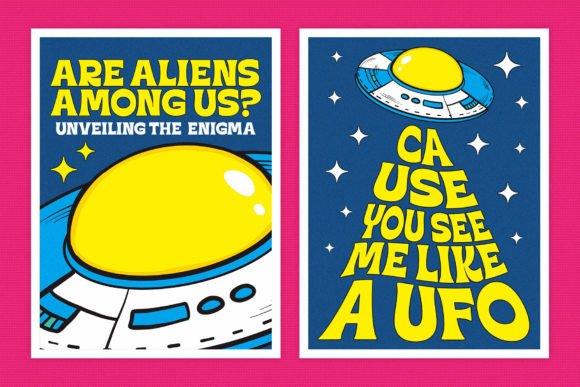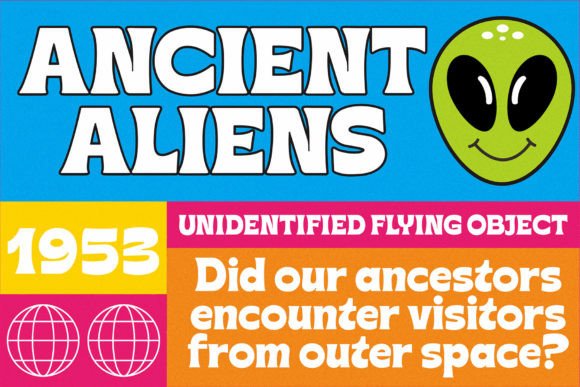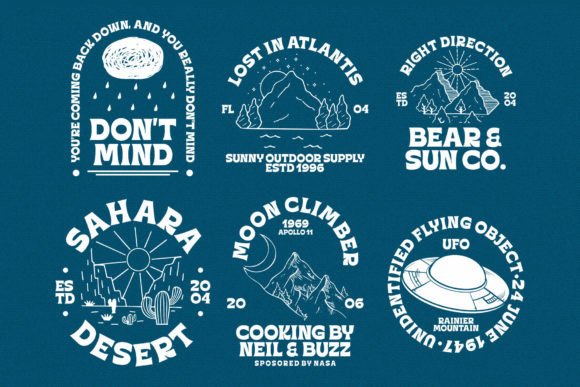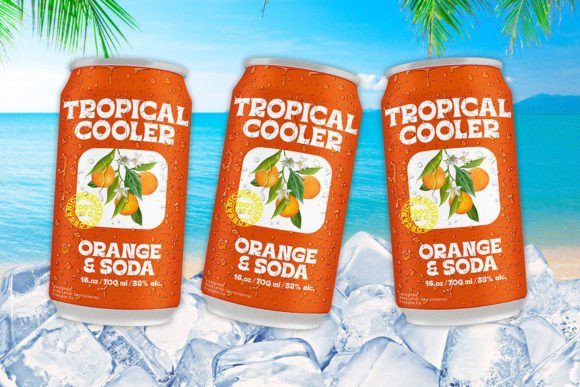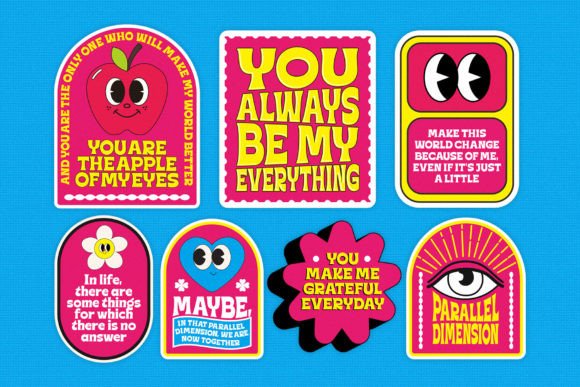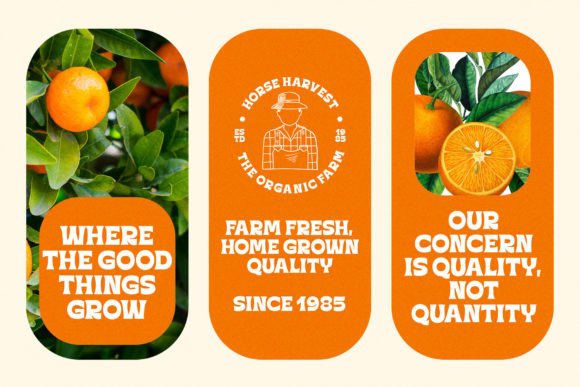
Introduction to Seven Moon Font
Have you ever stared at a blank canvas, trying to conjure up the perfect design for your next creative project? You’ve got a vision in your mind, but the words just won’t seem to flow. The perfect font can make all the difference, and that’s where the Seven Moon Font comes in – a retro-inspired masterpiece that’s sure to capture your audience’s attention.
| 👤 Author | Fourlines.design |
Whether you’re a seasoned designer or a creative enthusiast, the Seven Moon Font is an invaluable resource that’s waiting to elevate your next project. With its bold strokes, unique shape, and cheerful charm, this font is the perfect combination of nostalgia and modernity. And the best part? It’s available for free download, making it an accessible design resource for everyone.
From social media graphics to branding and advertising, the Seven Moon Font is the perfect addition to any design project. Its high-quality, transparent background makes it easy to customize and pair with your favorite colors and images. So why settle for a generic font when you can make a statement with the Seven Moon Font?
Key Features of Seven Moon Font
- Unique, high-quality design perfect for creative projects, offering a range of styles and versatility.
- Perfect for designers looking for a unique and creative font to elevate their projects.
- Includes a comprehensive character set, making it suitable for a wide range of design applications.
Honest Review: Seven Moon Font
As a designer, I’m always on the lookout for unique and high-quality design resources. Recently, I came across the Seven Moon Font, and I’m excited to share my honest review with you.
- ✨ Unique and Creative Style: The Seven Moon Font has a distinctive, dreamy quality that’s perfect for creative projects that require a touch of magic.
- ✨ High-Quality Design: The font is beautifully crafted, with smooth lines and precise details that make it a pleasure to work with.
- ⚠️ Limited Font Sizes: While the font is beautiful, it’s not ideal for large-scale text, as the details can get lost.
- ⚠️ No Transparent Background Option: If you need a transparent background, you’ll need to use a separate tool or software to achieve the effect.
Overall, I’m impressed with the Seven Moon Font. It’s a beautiful addition to any design project, and its unique style makes it stand out from the crowd. While it has some limitations, the benefits far outweigh the drawbacks. If you’re looking for a high-quality design resource for your creative project, the Seven Moon Font is definitely worth considering.
The Seven Moon Font is a versatile font that can be used for a variety of creative projects, such as logo designs, business cards, and social media graphics. It’s also great for creating titles and headings for presentations and documents. With its transparent background and high-quality design, the Seven Moon Font is a great addition to any design resource library.
Q: Is Seven Moon Font a high-quality design resource?
Yes, Seven Moon Font is a high-quality design resource that’s been carefully crafted to provide a unique and elegant look. The font is designed to be highly legible and versatile, making it an excellent choice for designers who demand high-quality typography in their creative projects.